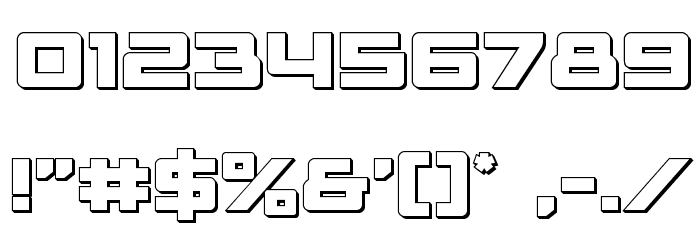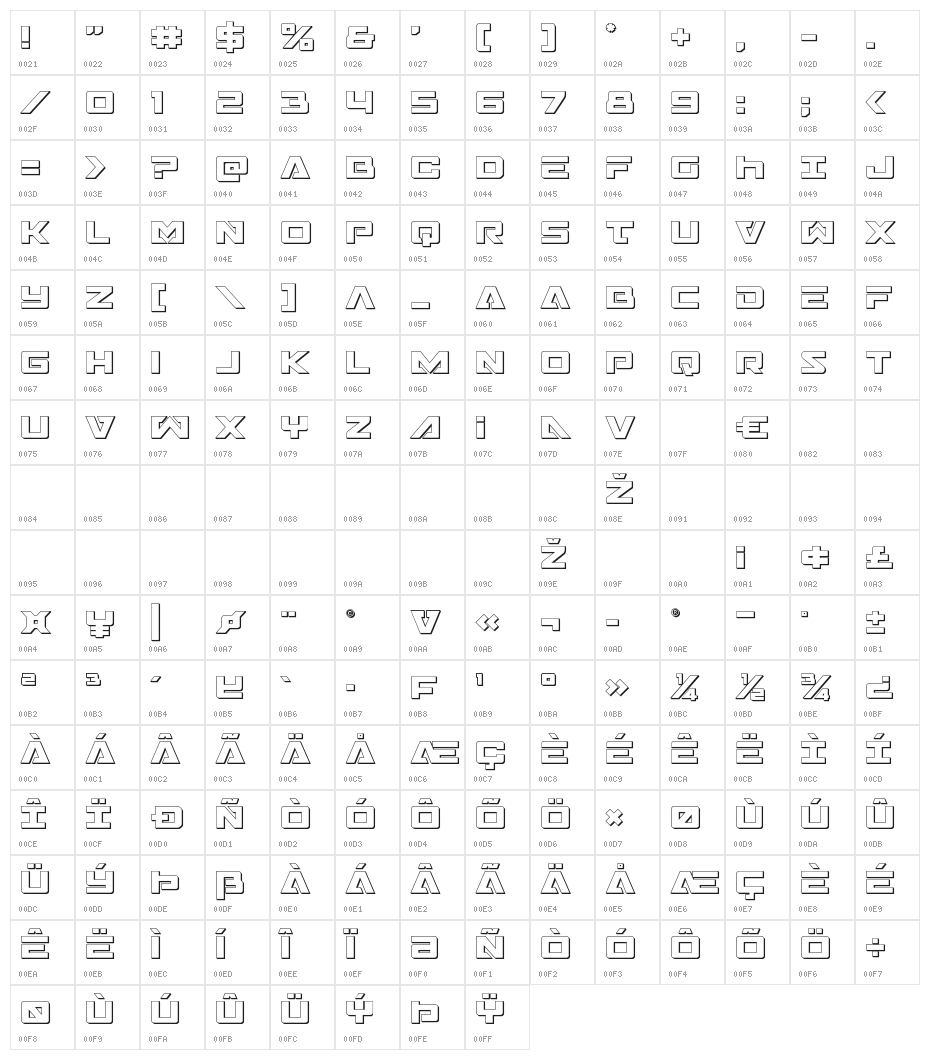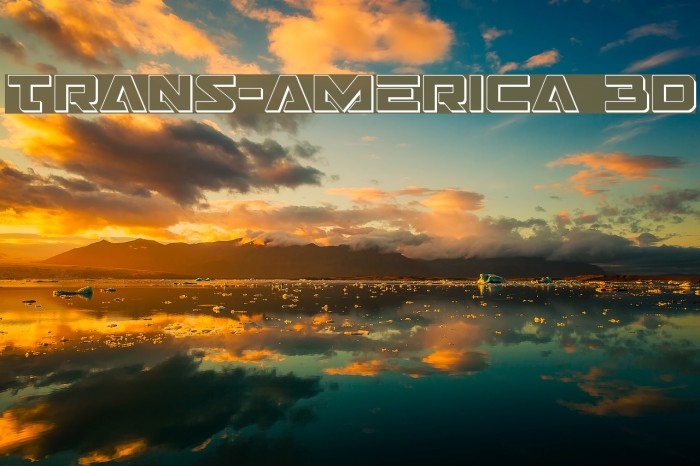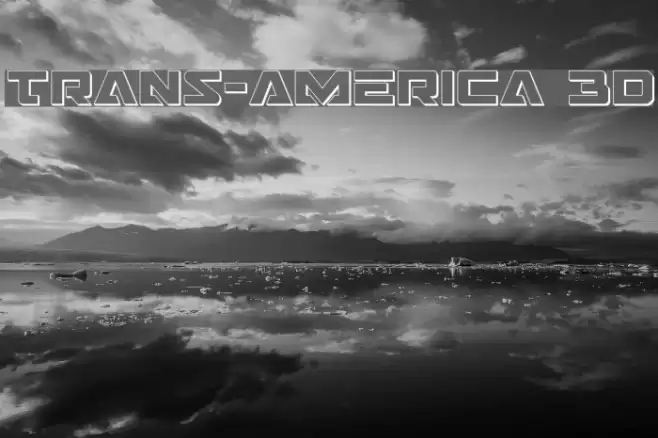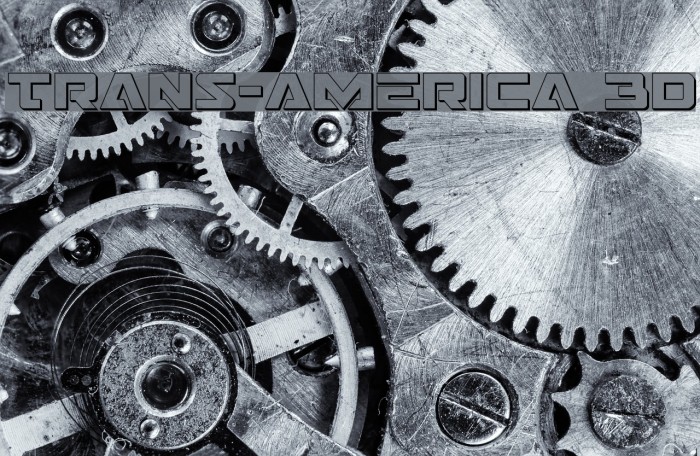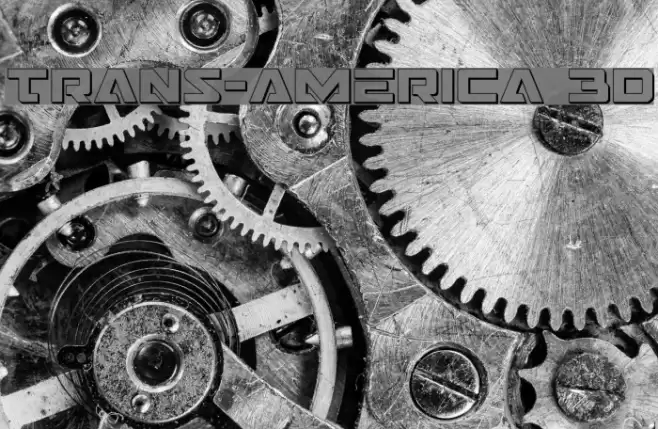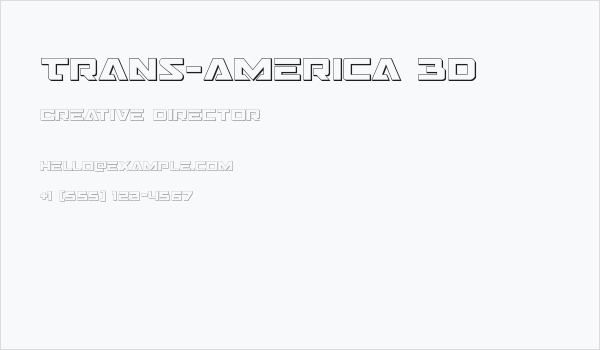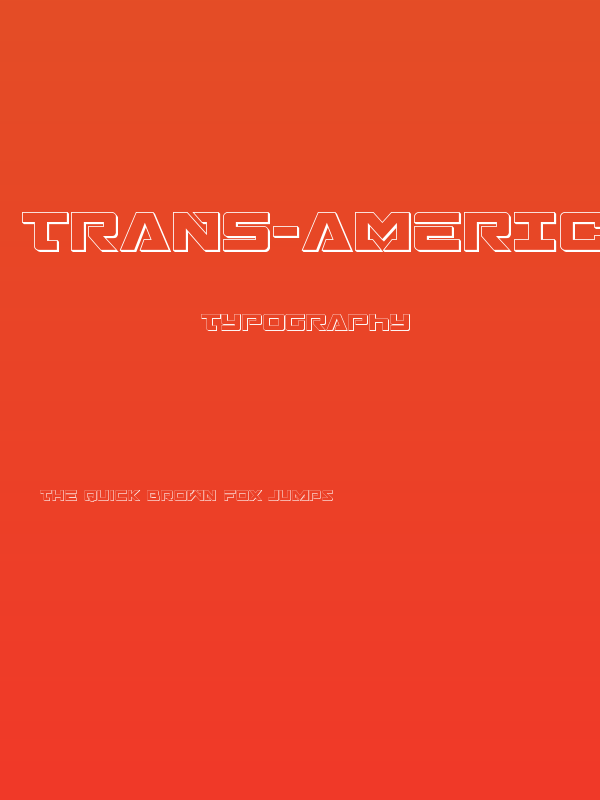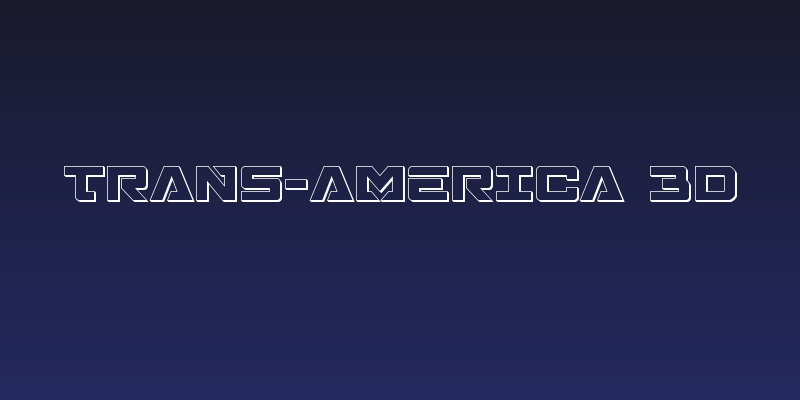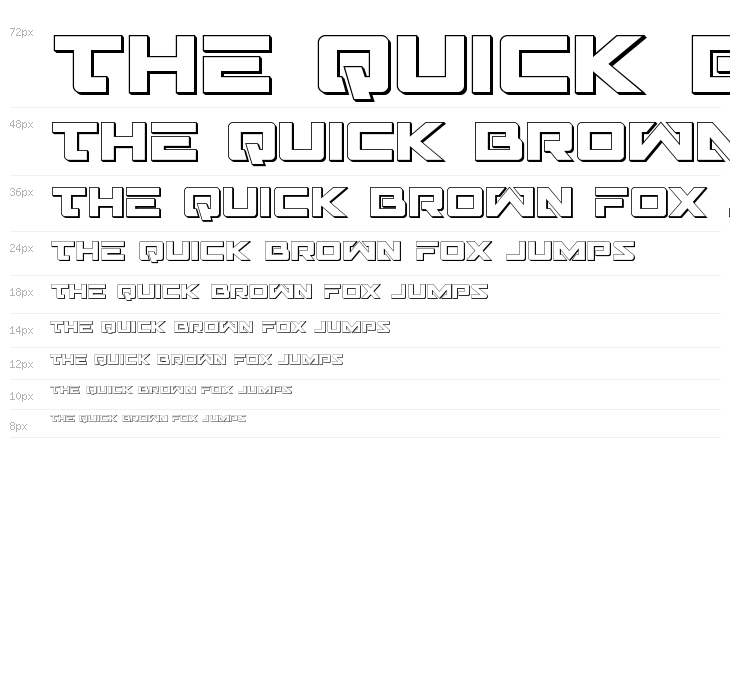
Trans-America 3D Font
Trans-America 3D Description
This font features a bold, three-dimensional design with a futuristic and geometric aesthetic. Each character is outlined, creating a hollow effect that enhances its 3D appearance. The angular and sharp edges give it a modern and dynamic look, suitable for eye-catching designs. The uppercase letters are consistent in style, with a uniform height and width, while the numbers and special characters maintain the same bold and structured form. The font's unique style makes it ideal for projects that require a strong visual impact.
| Proposed Projects | Ideal for logos, posters, video game graphics, and sci-fi themed designs. |